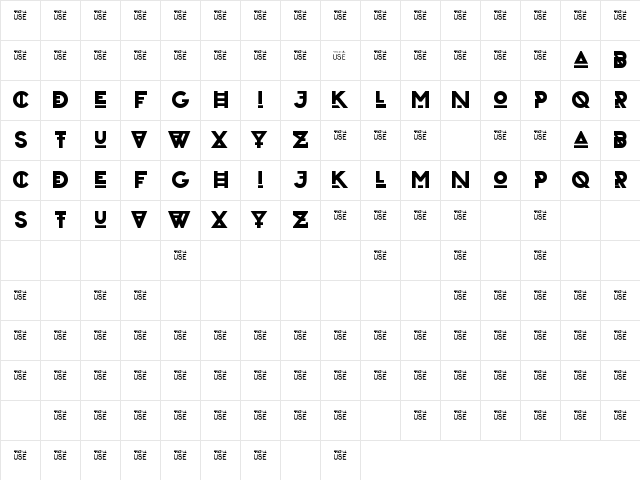
Zilap Urban Bold
| Foundry | Zilap Estudio |
| Designer | Juan Navarro |
Design Context for Zilap Urban Typeface
Zilap Urban is a composed and adaptable typeface that performs quietly and consistently across a wide range of design contexts. Its bold stroke weight gives it real presence on the page.